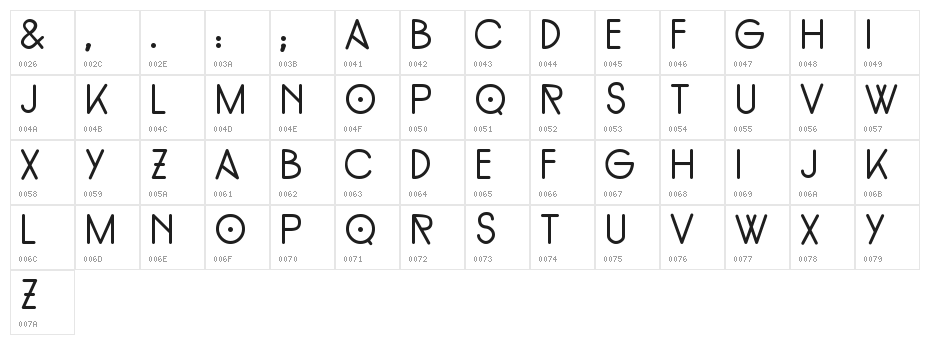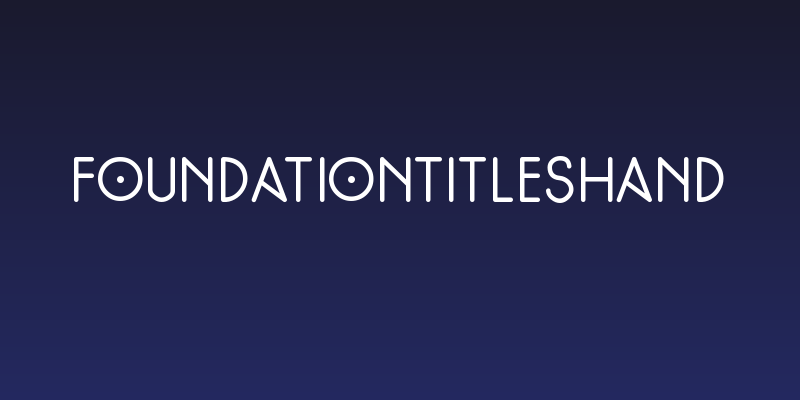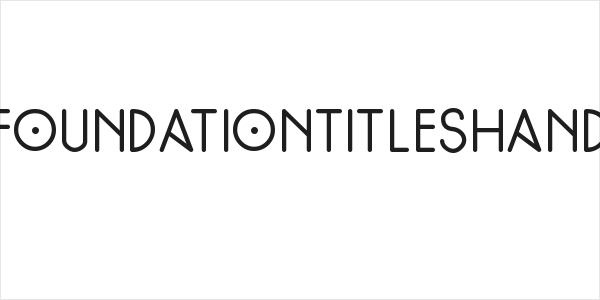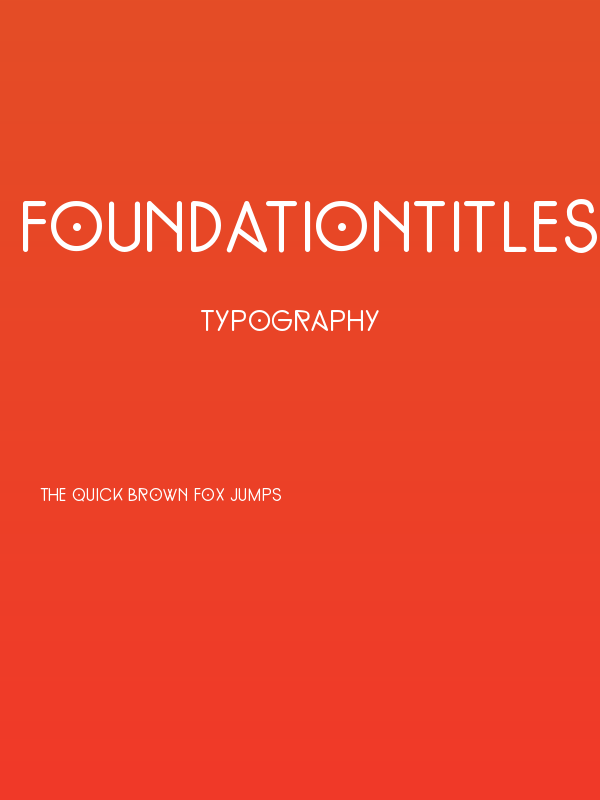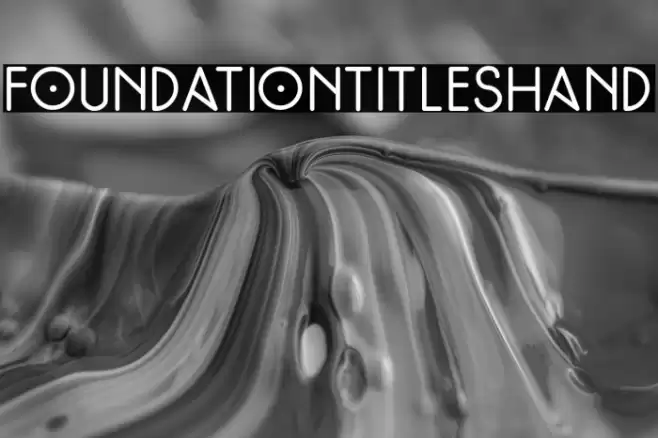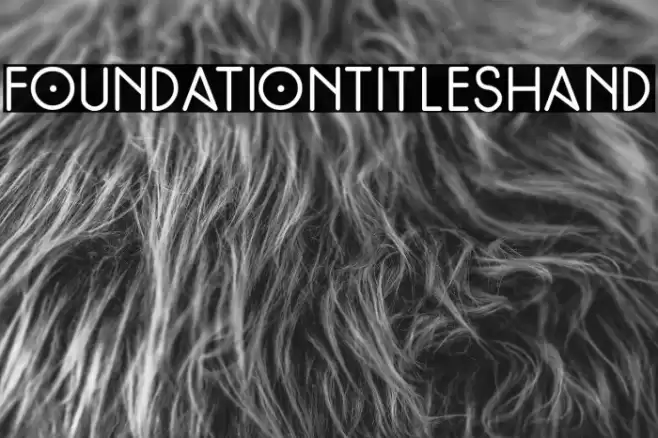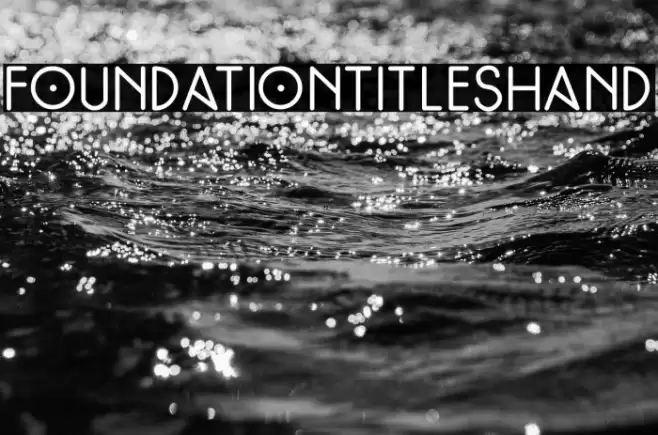
FoundationTitlesHand Font
FoundationTitlesHand Description
This font features a clean and modern sans-serif style with geometric influences. The characters are uniform in width, contributing to a balanced and harmonious appearance. The circular elements within certain letters, like 'O' and 'Q', add a unique touch, making it stand out. The lines are smooth and consistent, with a medium stroke contrast that maintains readability while adding a touch of elegance. This font is versatile, suitable for both digital and print media, and can effectively convey a contemporary and professional tone.
| Proposed Projects | Ideal for branding, headlines, posters, and digital media where a modern and clean aesthetic is desired. |